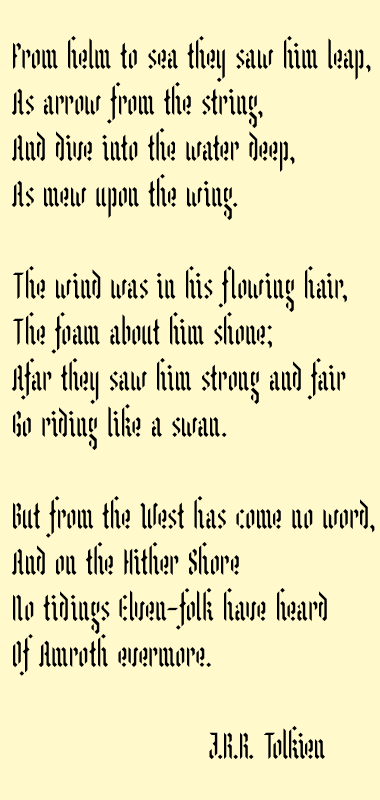
• Clone of Legolas Stencil. This is a second, much extended and revised edition of my very first fontstruction, Legolas Stencil (currently unavailable for public view). I have experienced some problem with the download: it does not include most of the special characters, the extended Latin set, and the ligatures. Sorry for the inconvenience.
Nice work Frodo. Love it.
It has a delightful airiness about it - I wouldn't change a thing :)
Beautiful, Frodo7. Just beautiful.
Scchhhhweeeet.
This is awesome Frodo7...really nice work.
it is PRECIOUS
Very impressive! I really like this, and will likely use it at some point.
About as close to perfection as one can get with FS I think. It splendidly legible and scans very comfortably.
It is also nice how the spacing is not to loose, yet characters like u, v, w, m, and n are all still quite distinguishable, which is often a difficult area with this style of font.
Great stuff Frodo7!